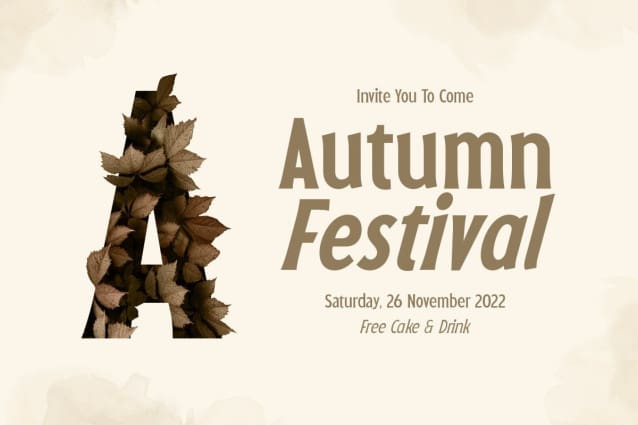
Galore Font
Galore Font – Stylish Vintage font family is a well-balanced contemporary font with a modern, unique and versatile vintage font that you can combine to easily achieve unique variations and shapes in seconds. This is a serif font with multiple weights, perfect for branding projects, logos, wedding design, social media posts, advertisements, product packaging, product design, labels, photographs, watermarks, invitations, stationery and any other project, it offers a high standard